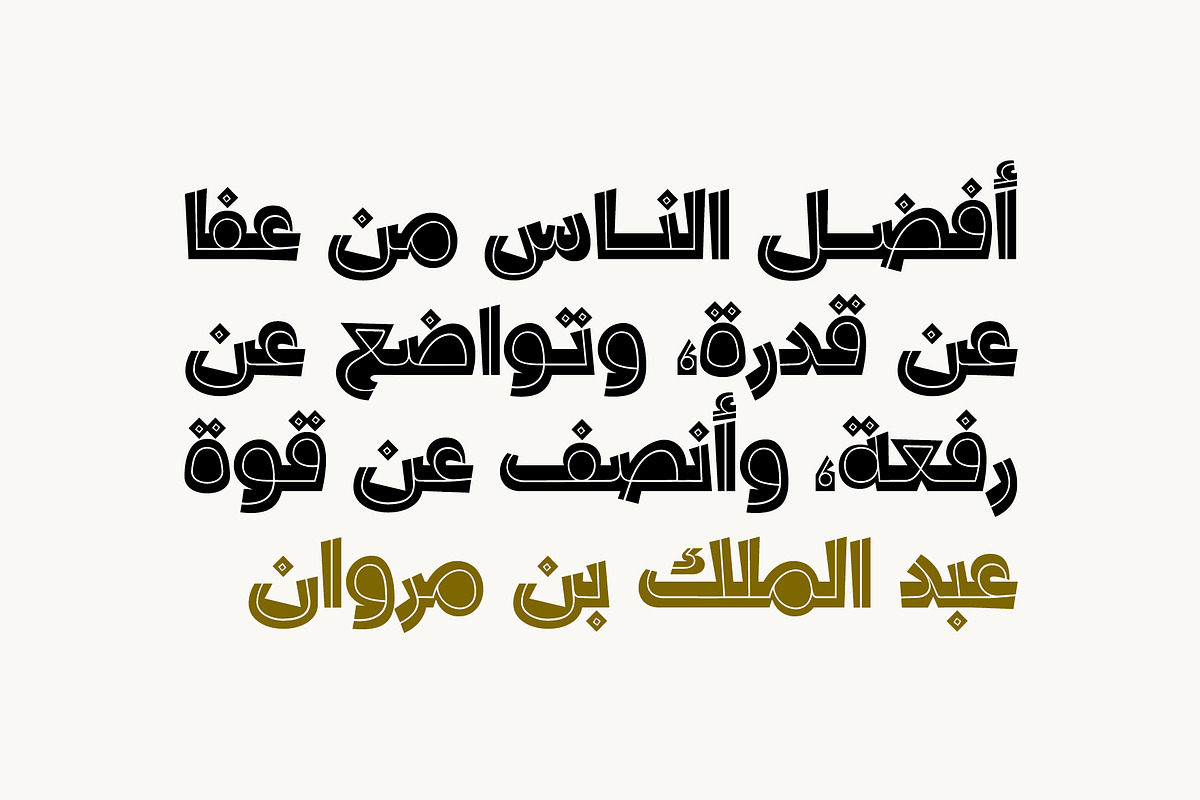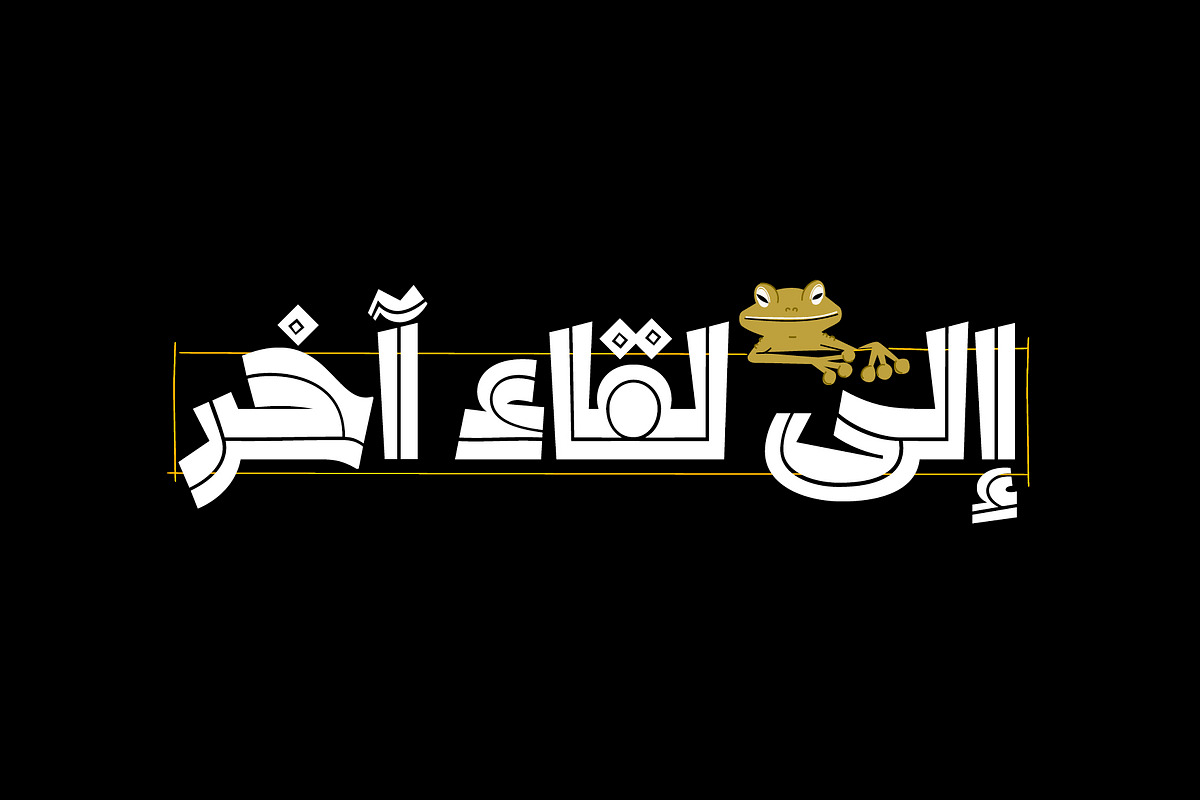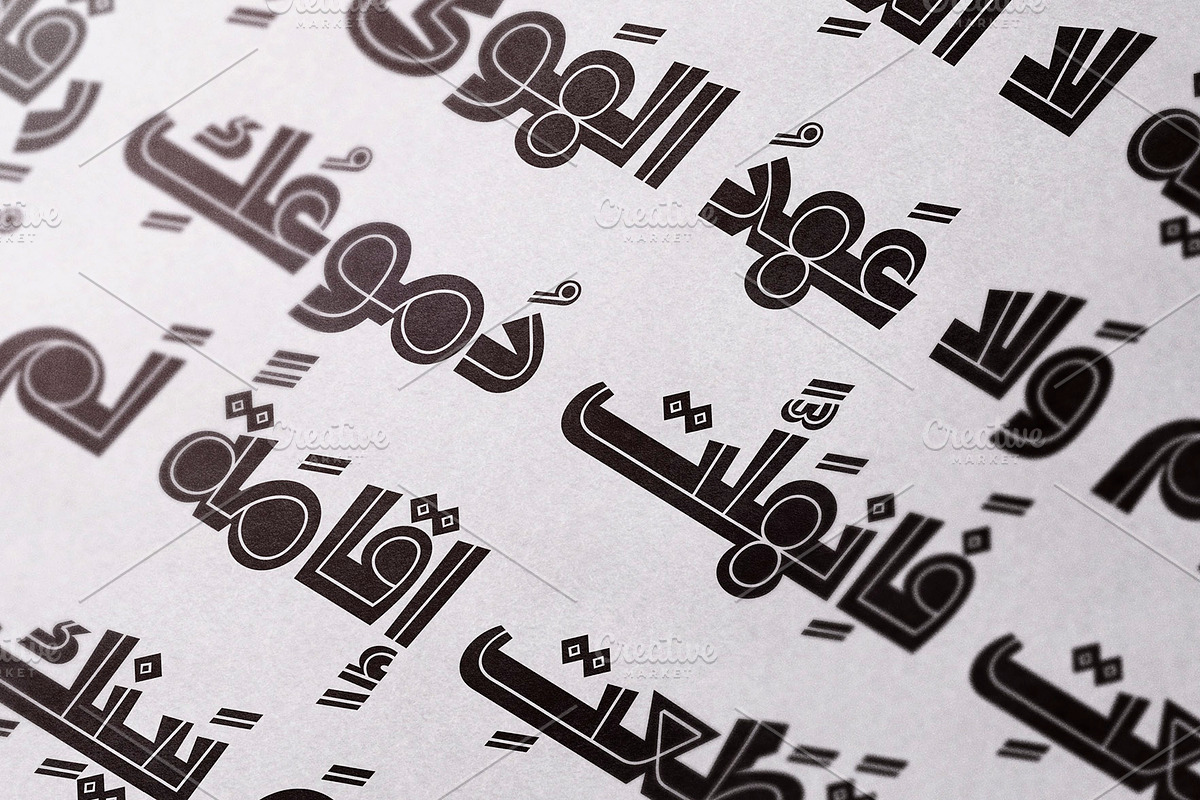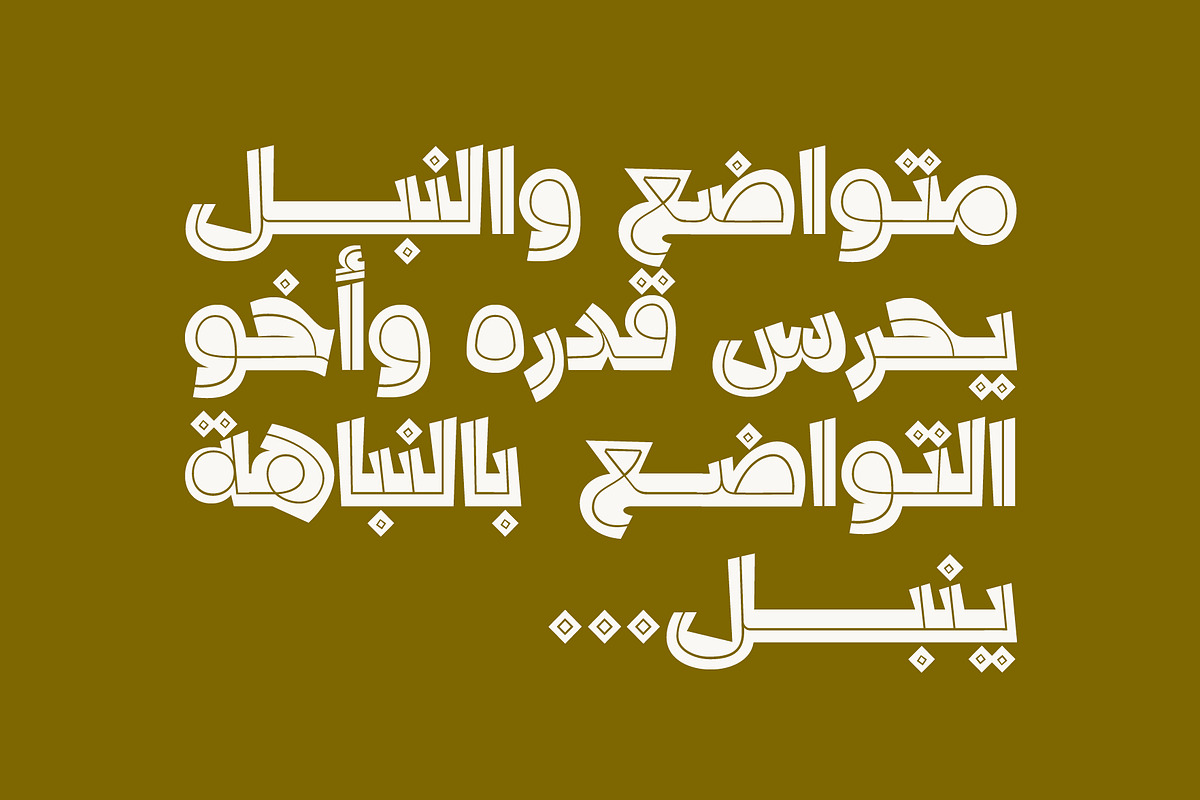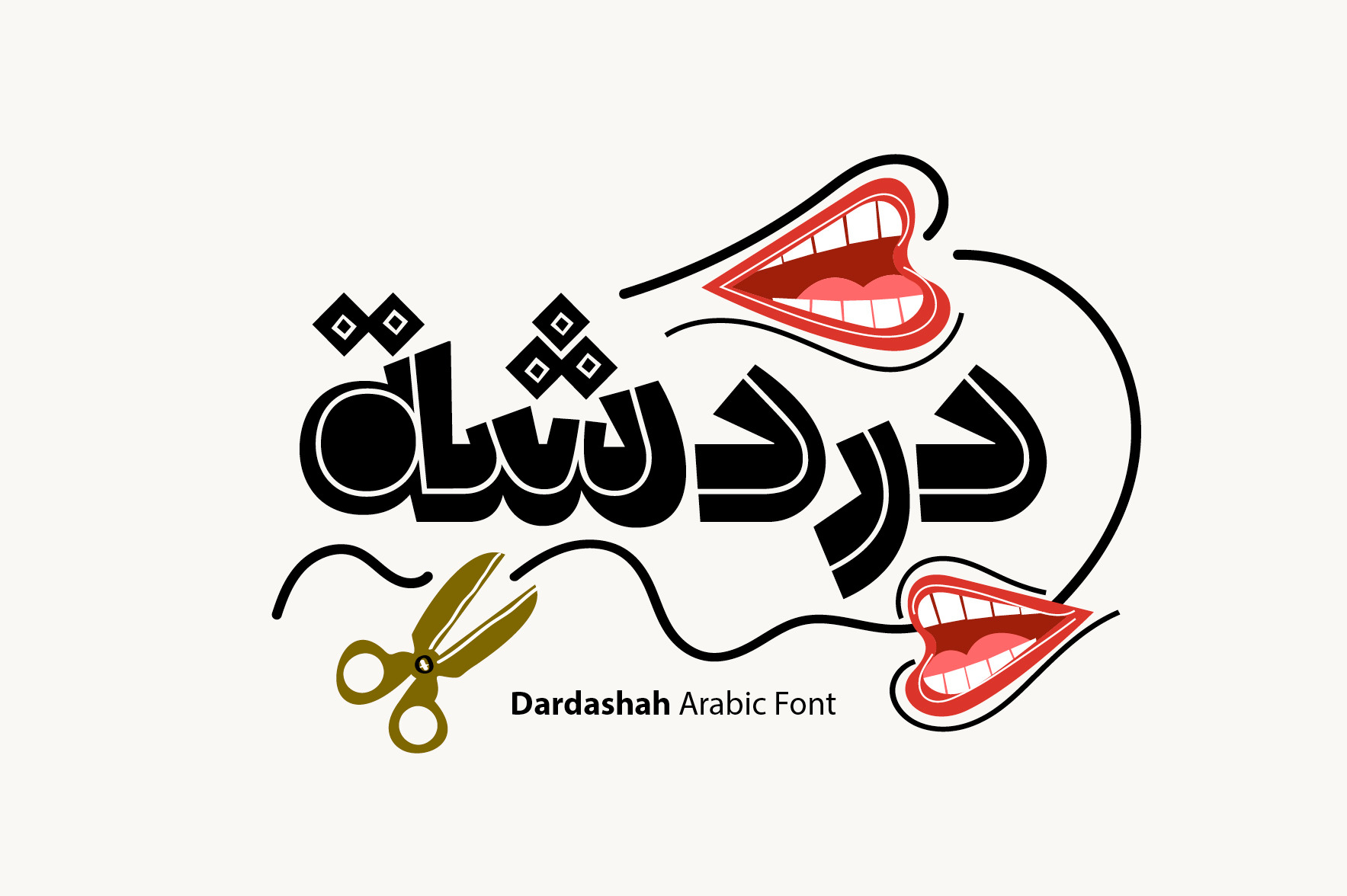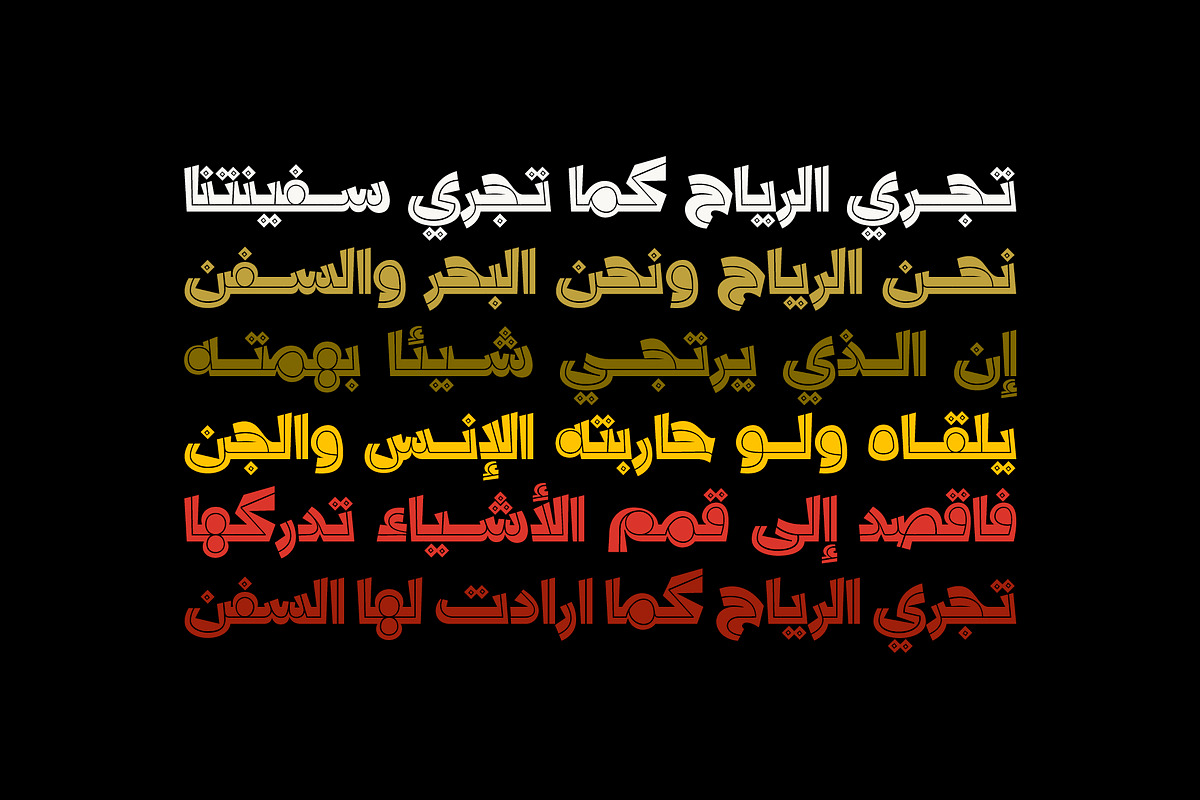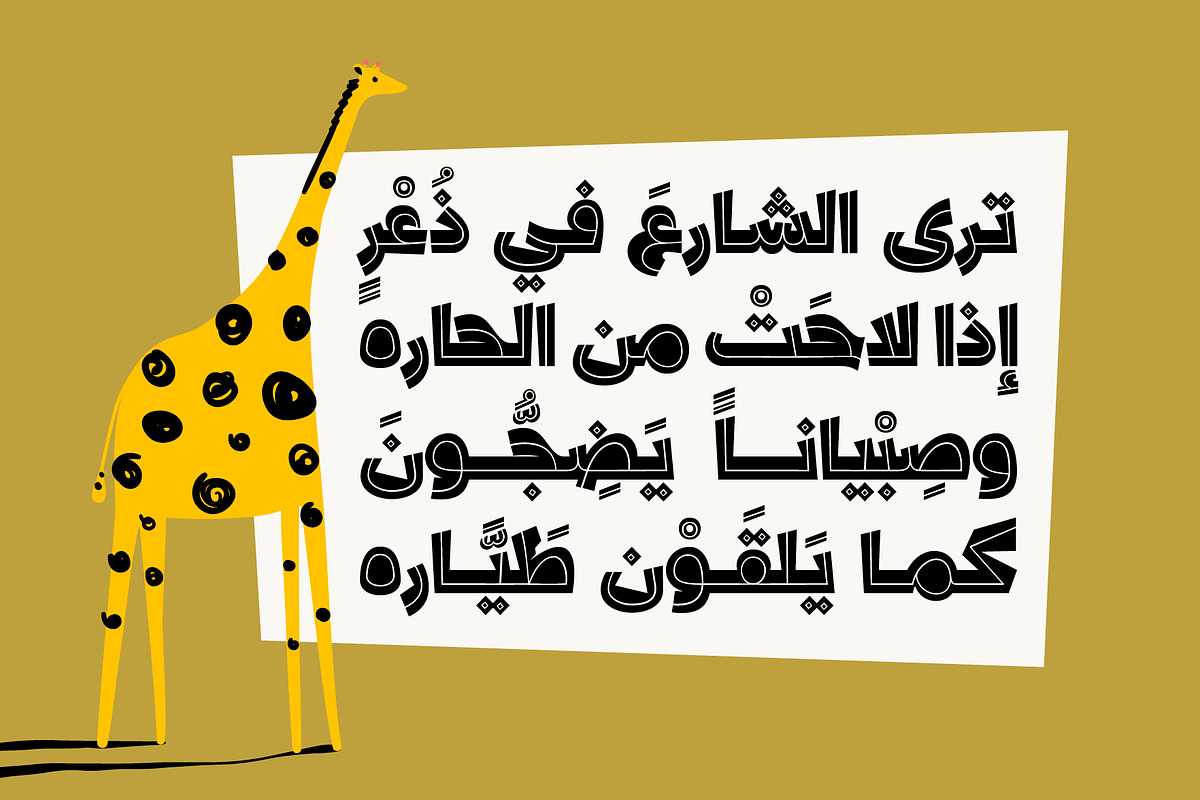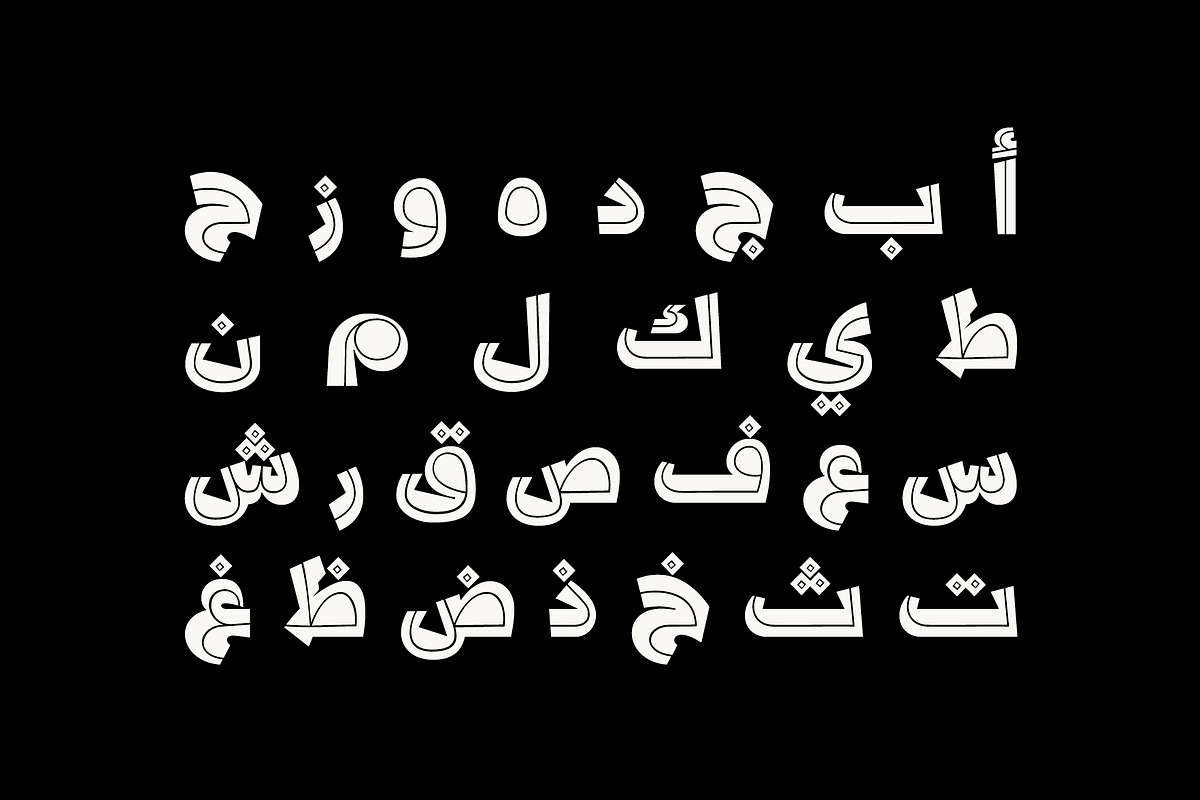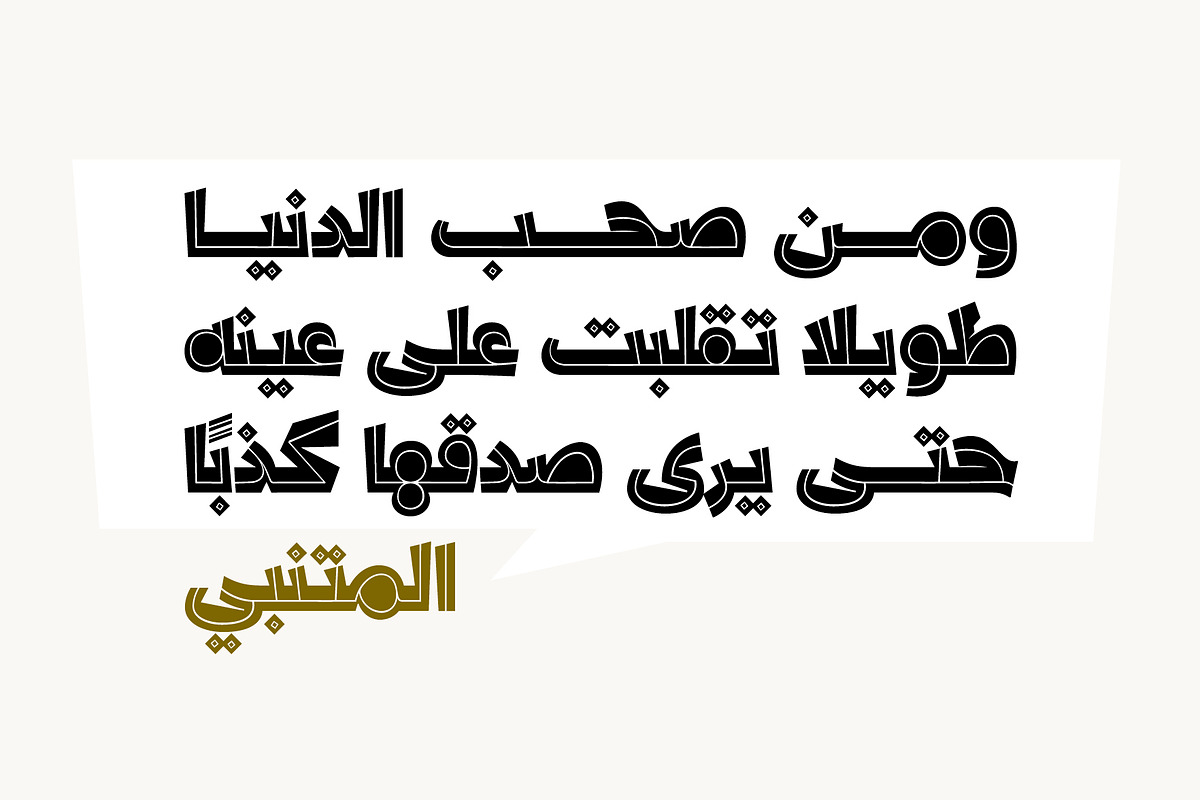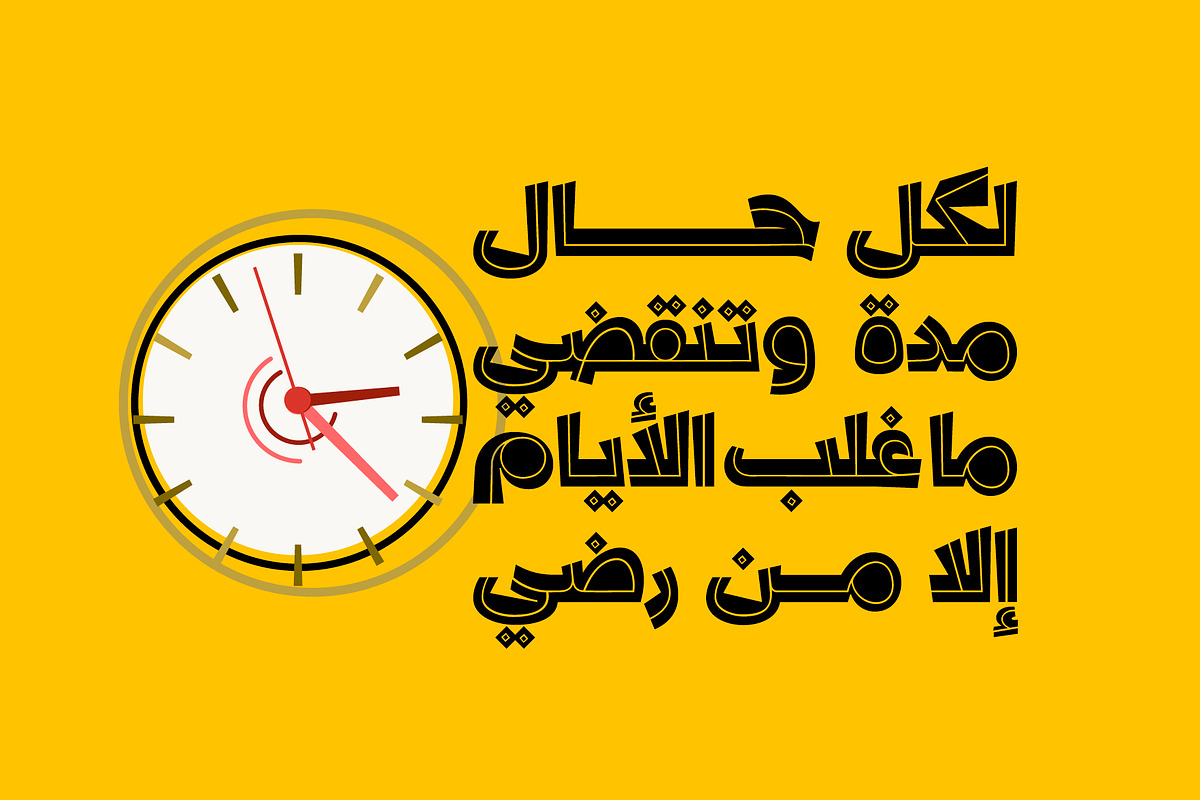
Dardashah - Arabic Font
Dardashah (which is the Arabic word for Chit-chat) is an Arabic display font that features free style with heavy letterform structure. The font is suitable for creative titling, logotypes, publication design and mobile applications. Dardashah font supports both Windows and Mac.